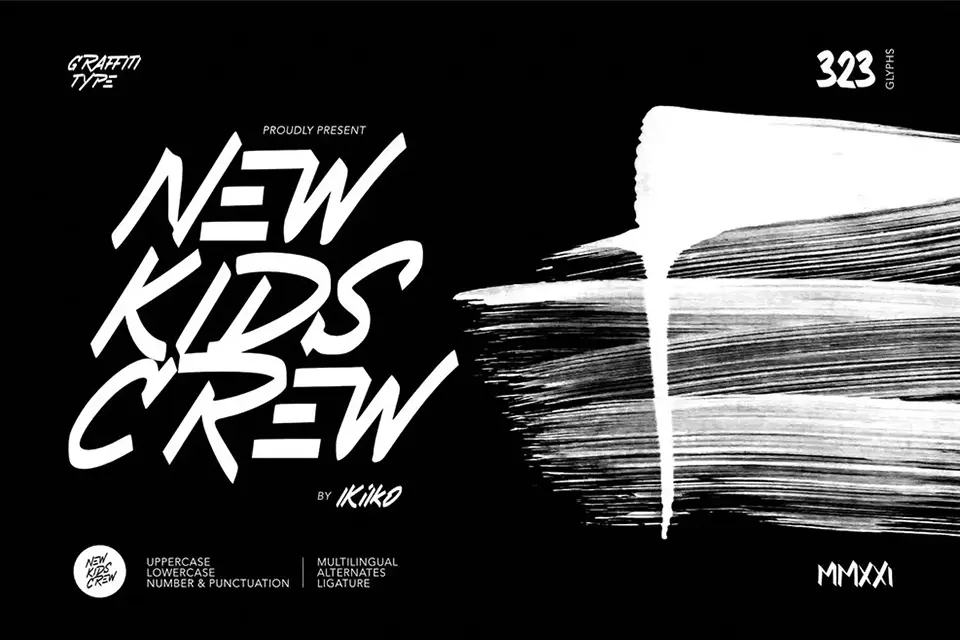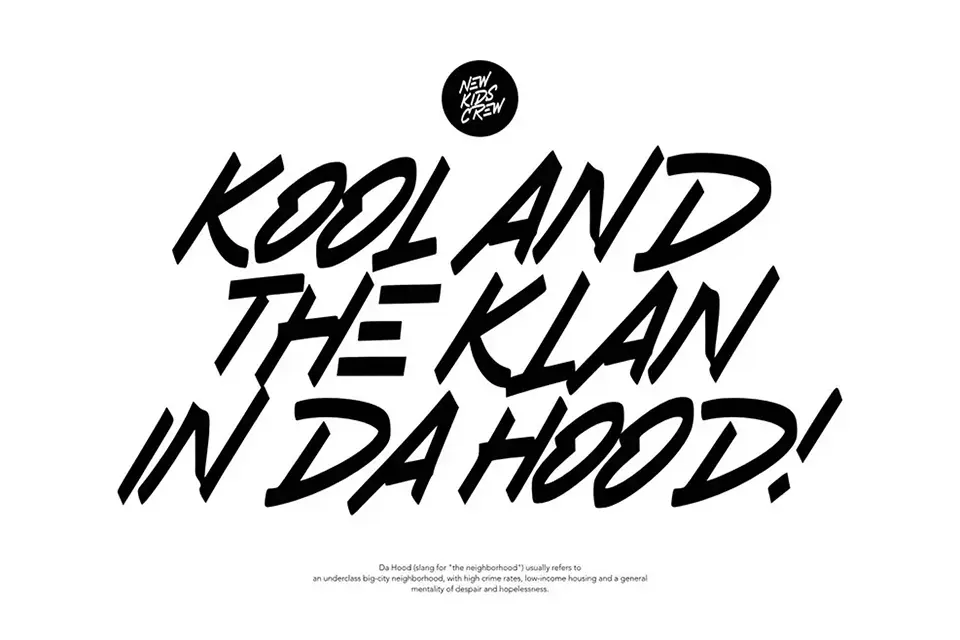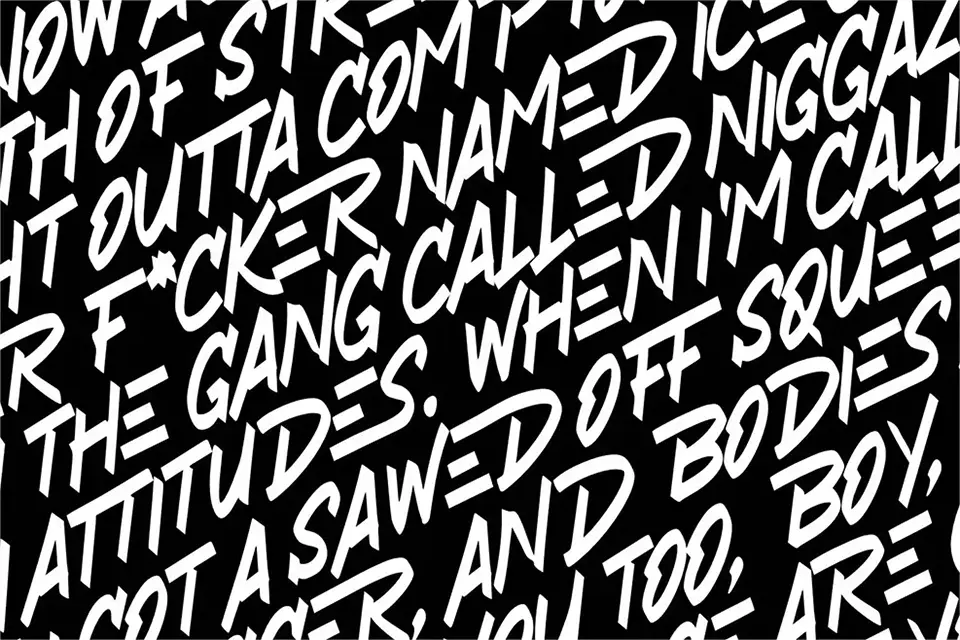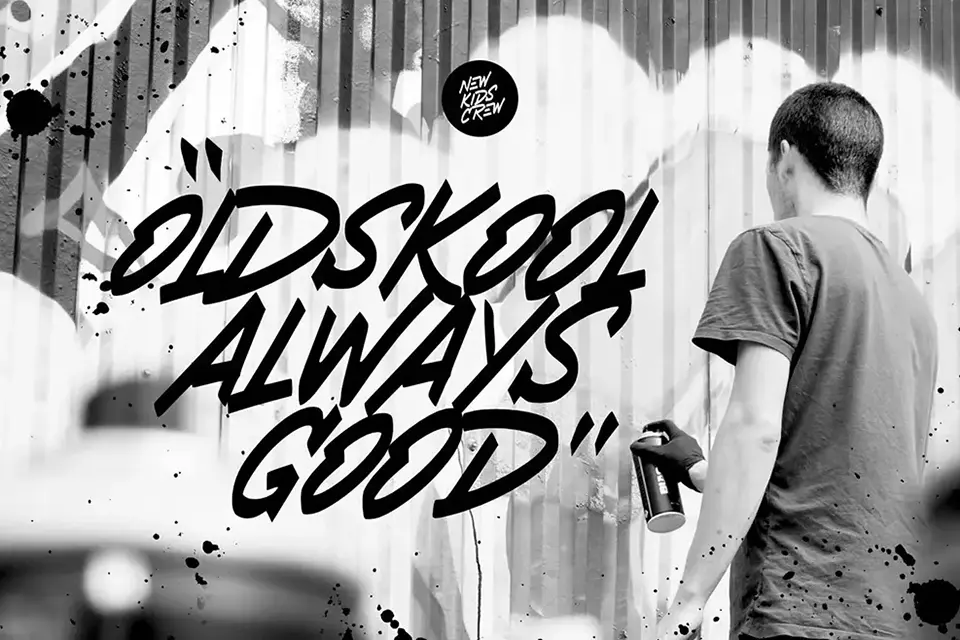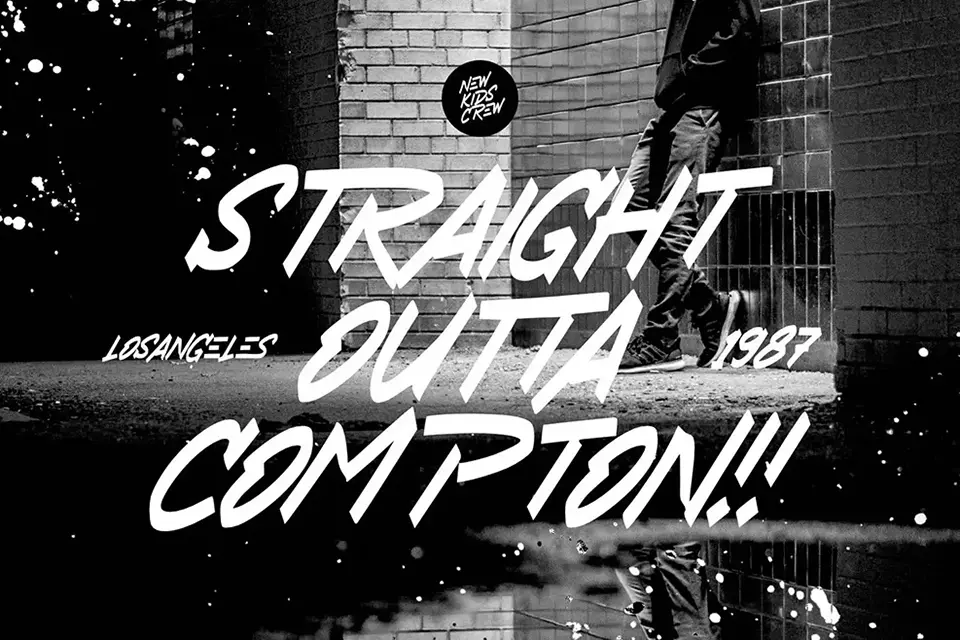
New Kids Crew Font
New Kids Crew is a raw and expressive brush font that embodies the rebellious spirit and artistic flair of urban graffiti. Designed with a freestyle shape filled with unique characters, it captures the essence of street style with authentic energy and youthful freedom. This display font is perfectly suited for eye-catching posters, dynamic magazine layouts, memorable brand logos, vibrant party flyers, and striking visual content that speaks to contemporary audiences seeking boldness and originality in their design projects.
Designed by:Ikiiko TypeWebsite